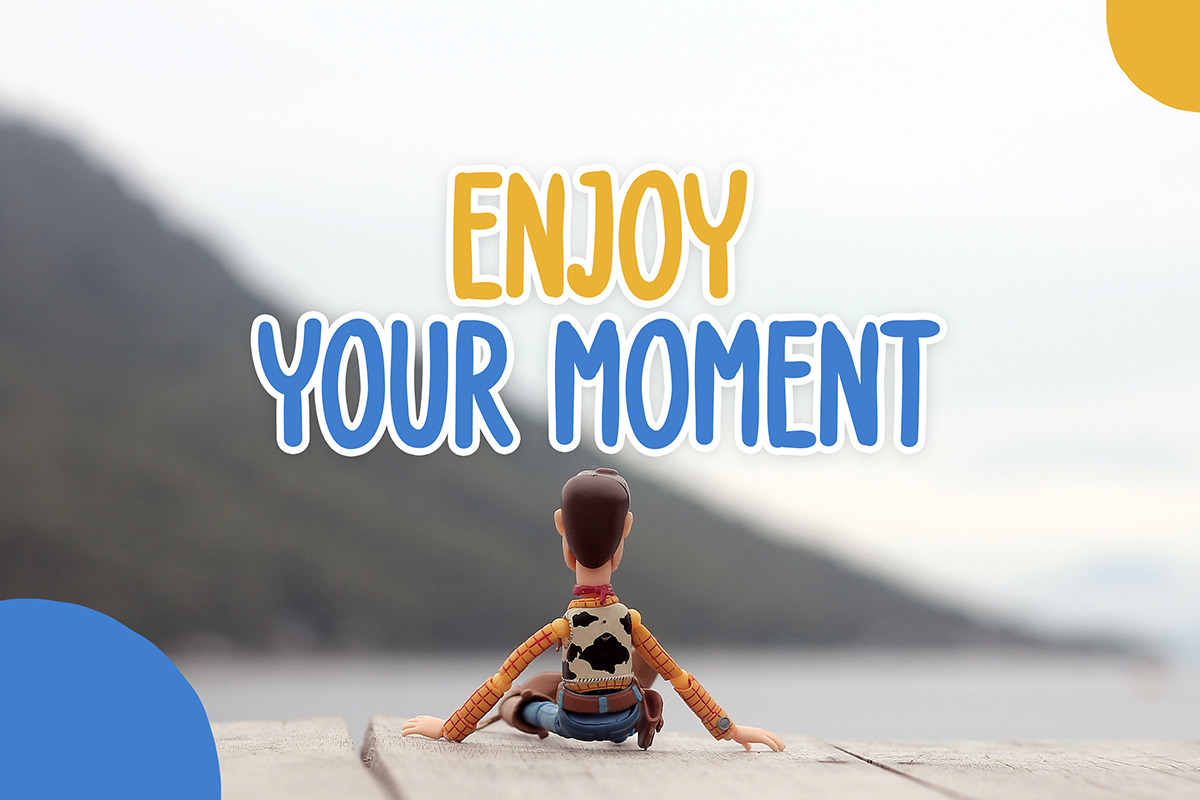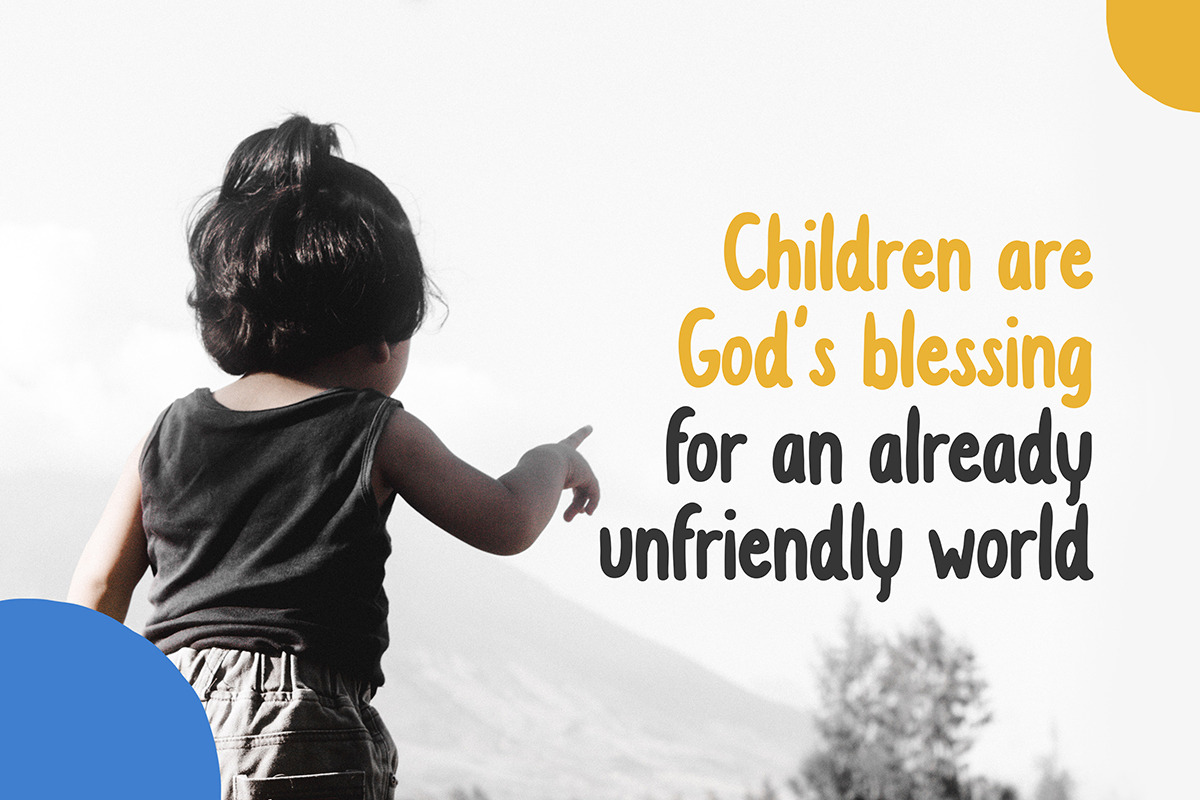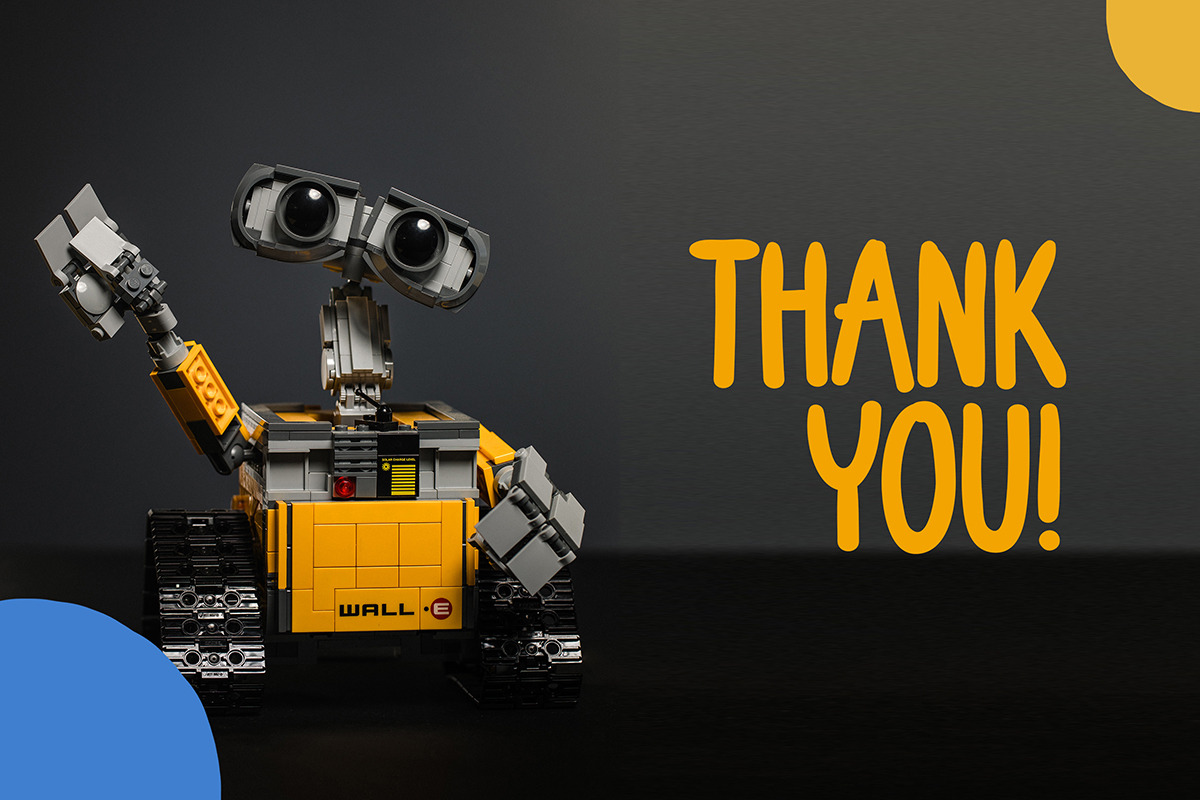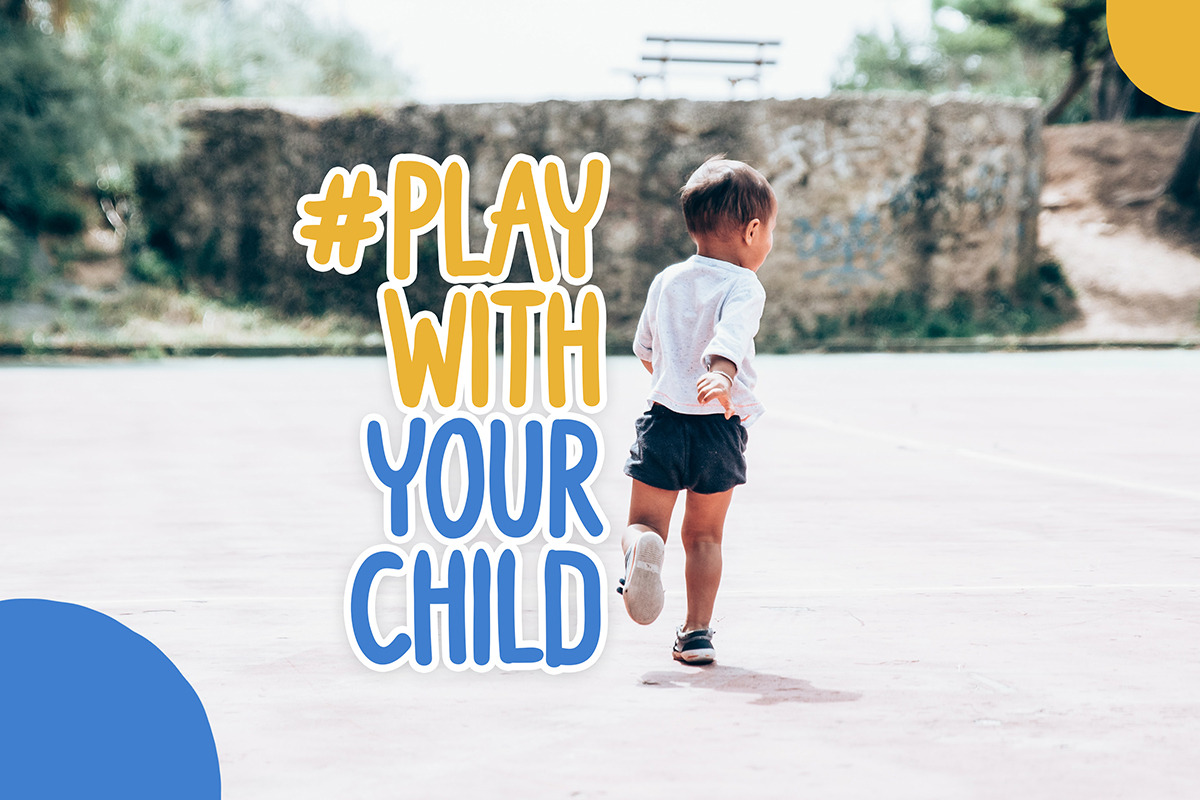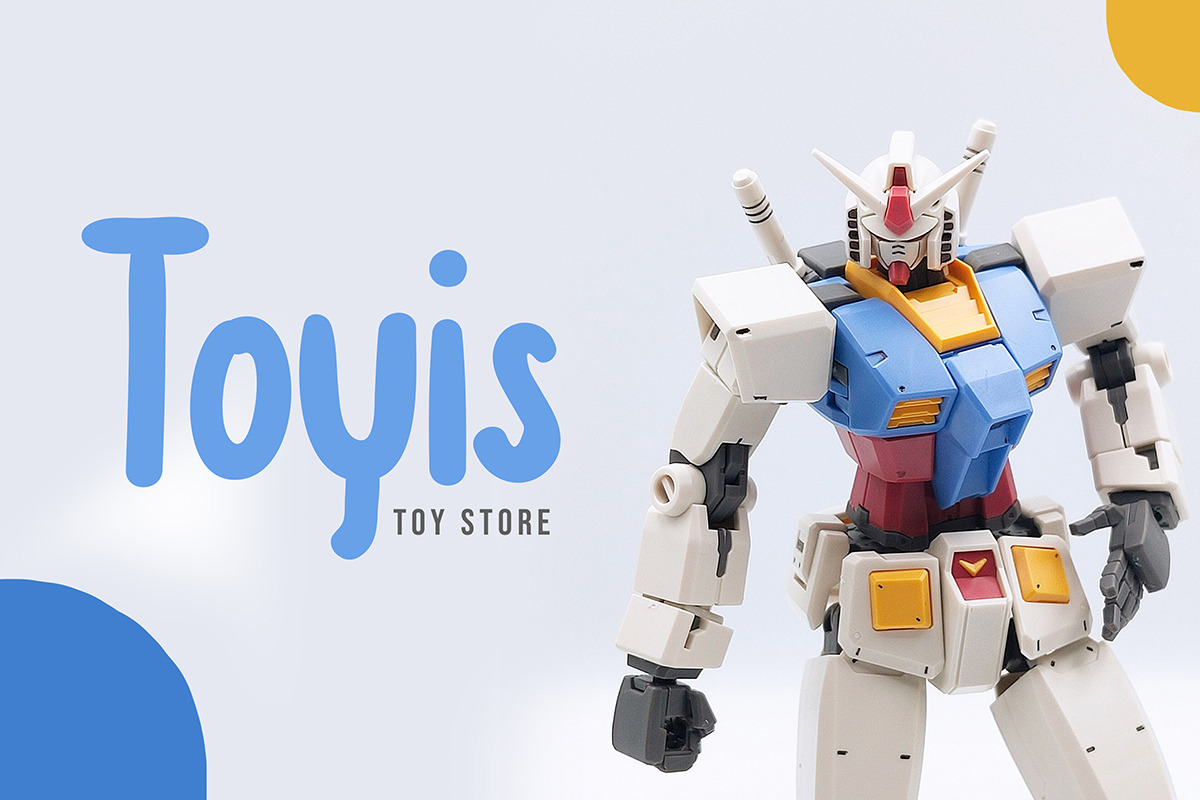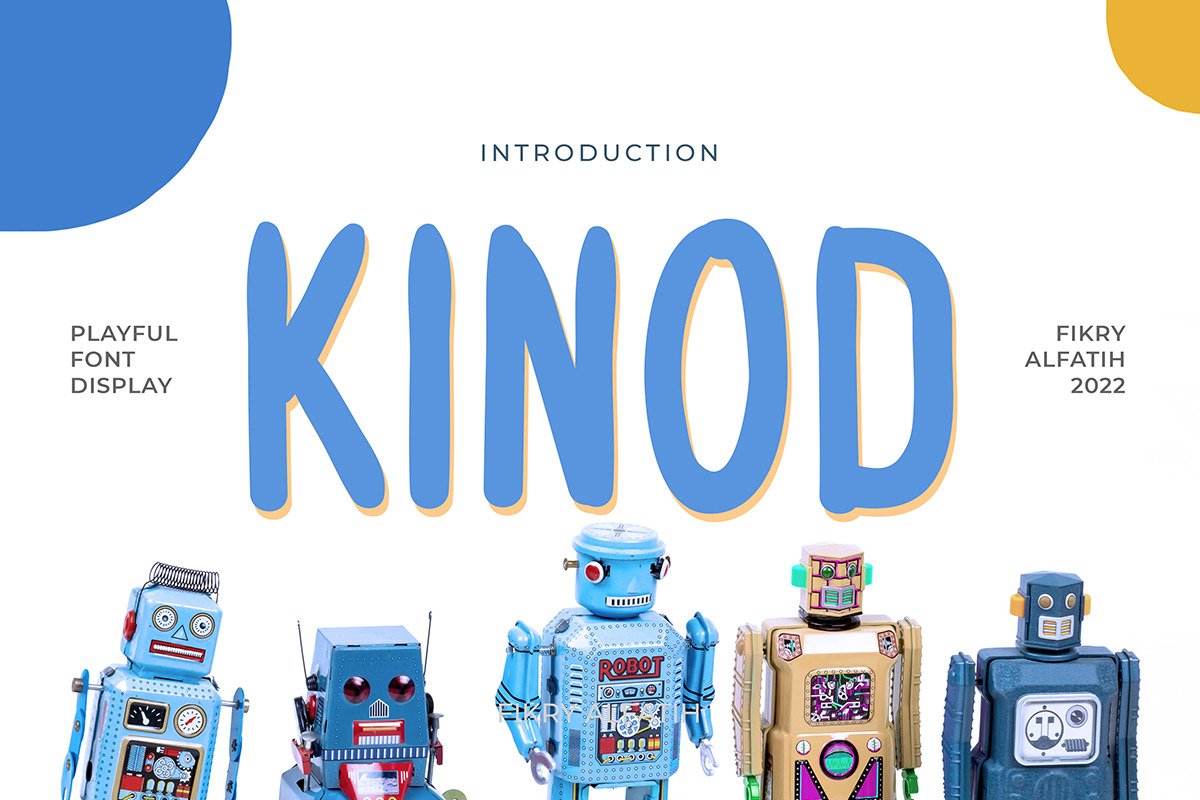
Kinod - Playful Font
Kinod is a fun and playful display font with cool, natural handwriting. This font is perfect for greeting cards, invitations, posters, baby clothes, book covers, quotes, logos, presentations, headlines, etc.